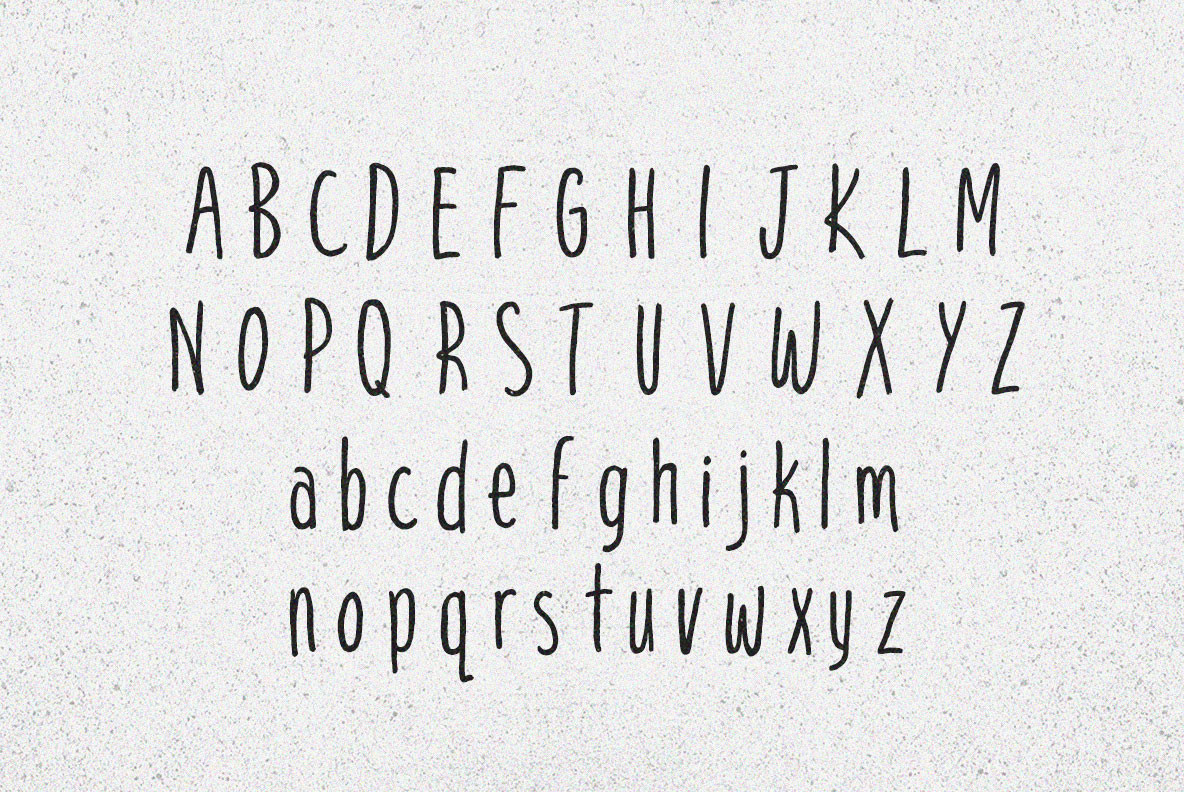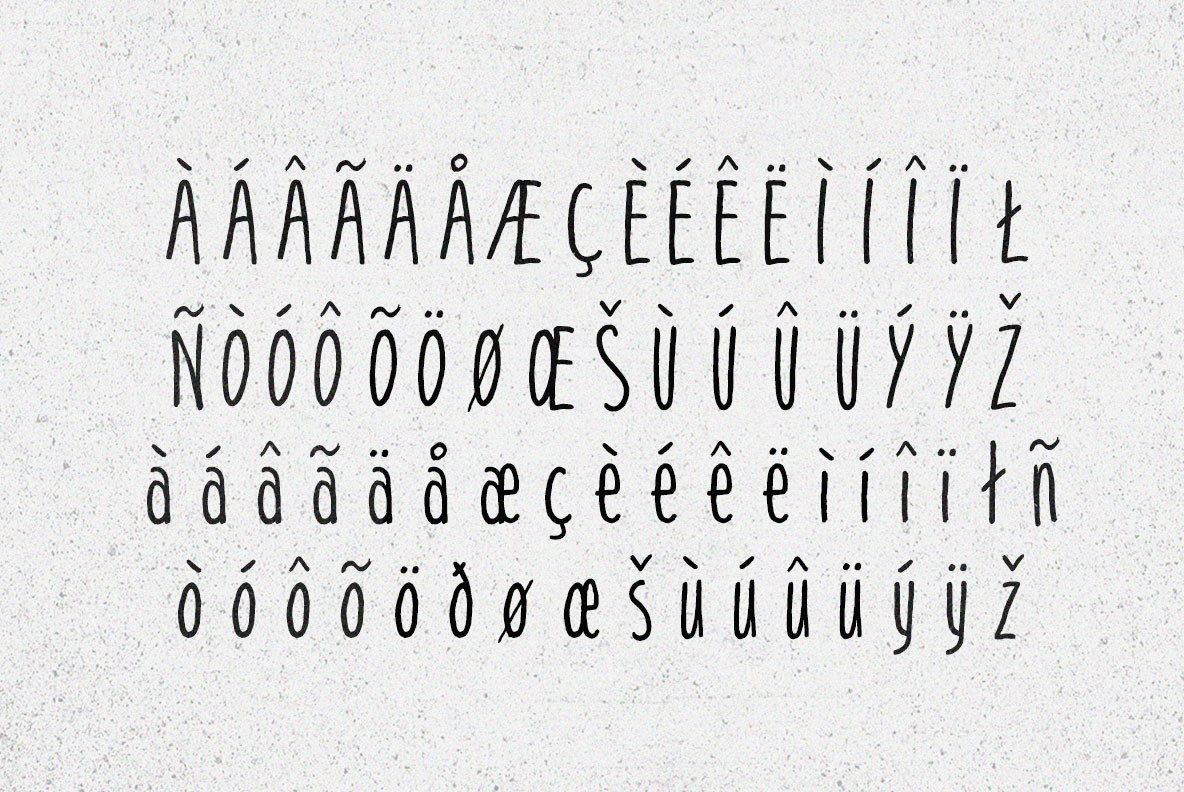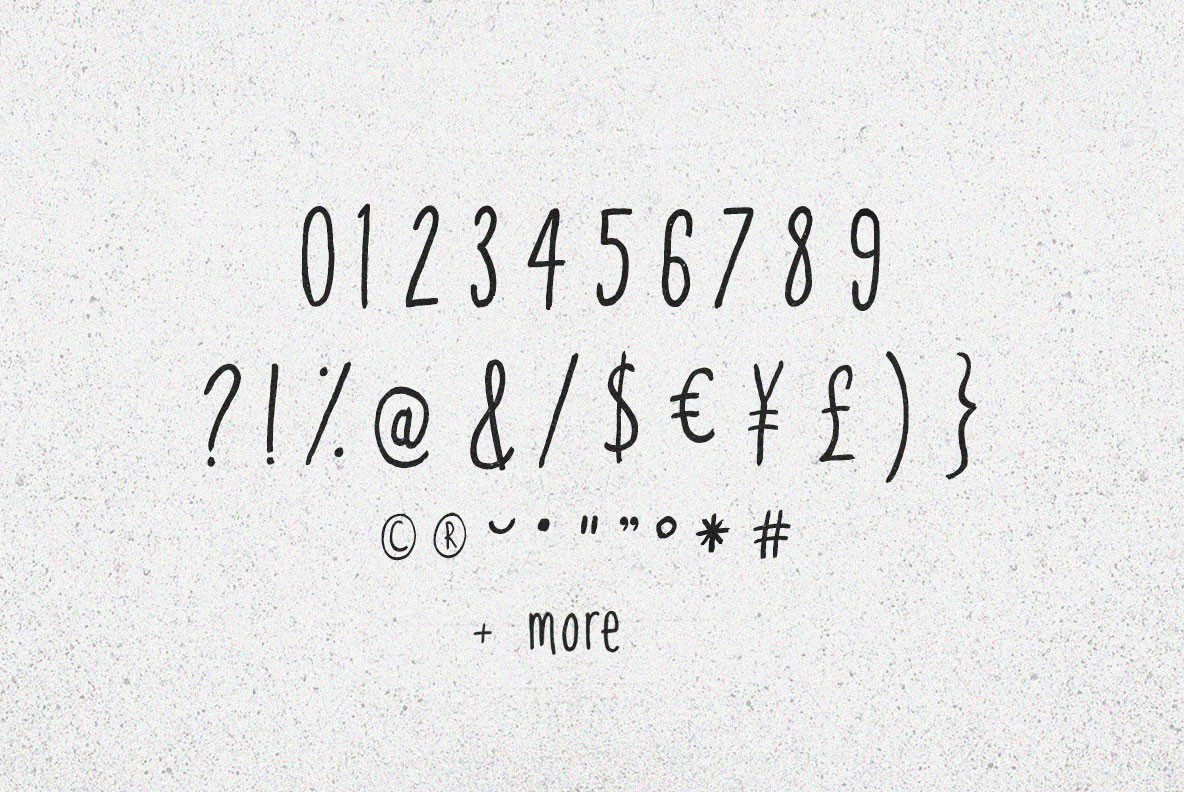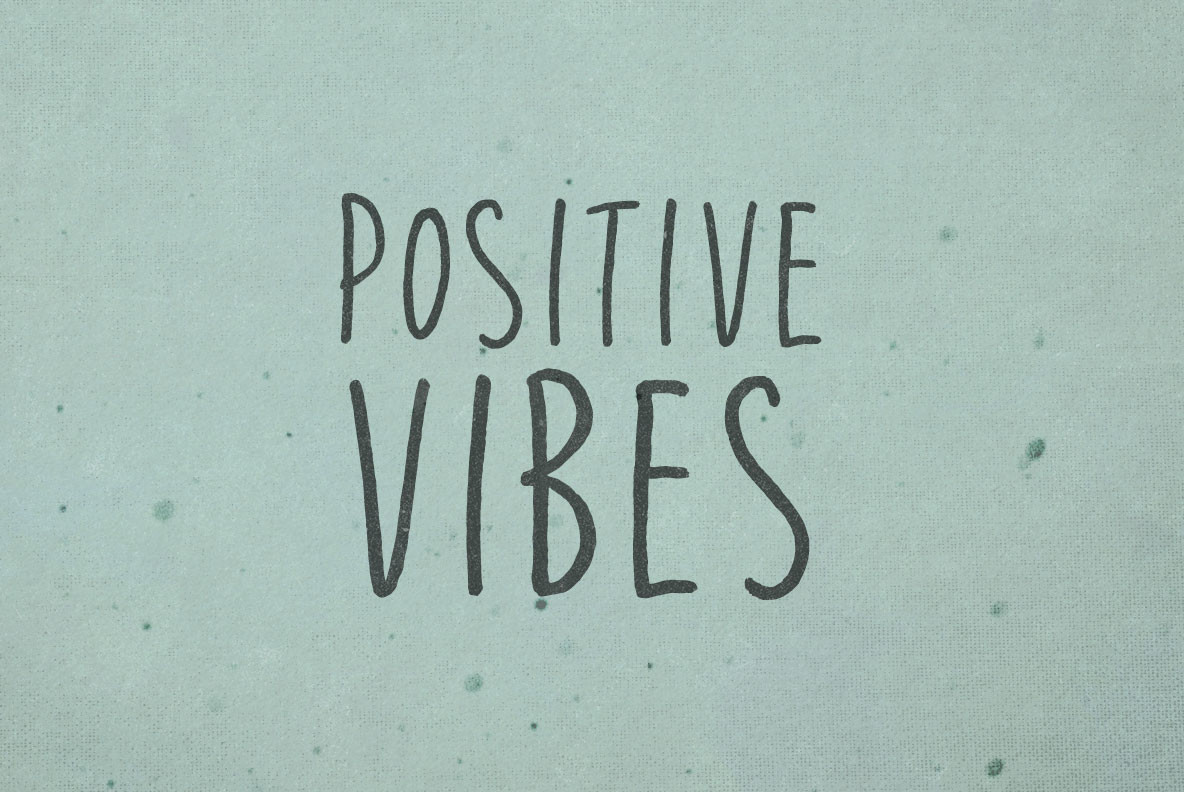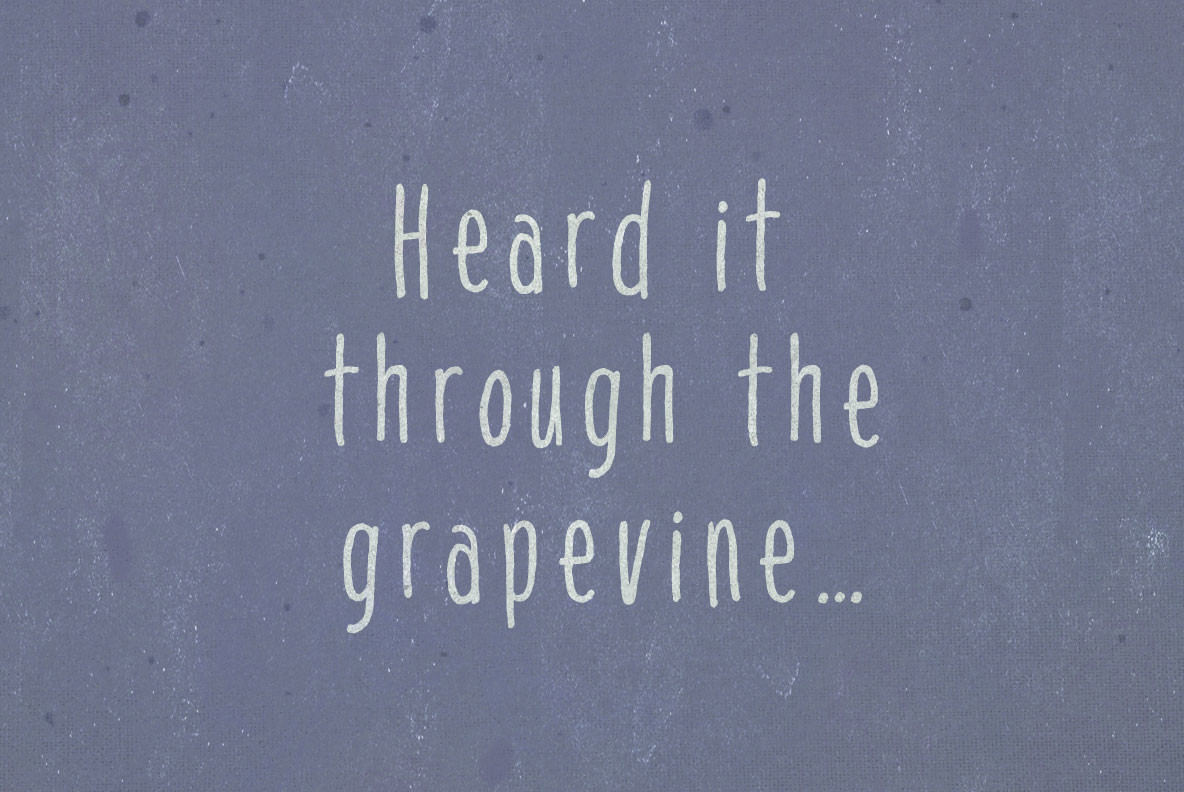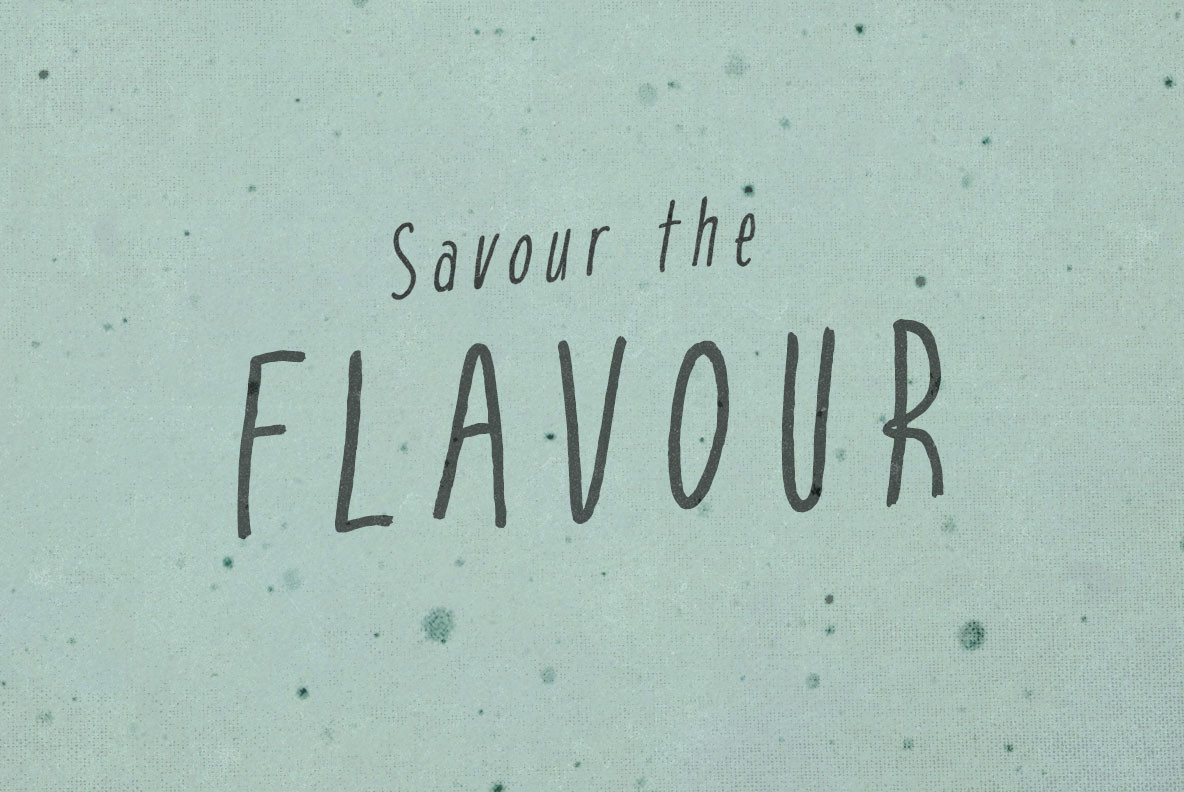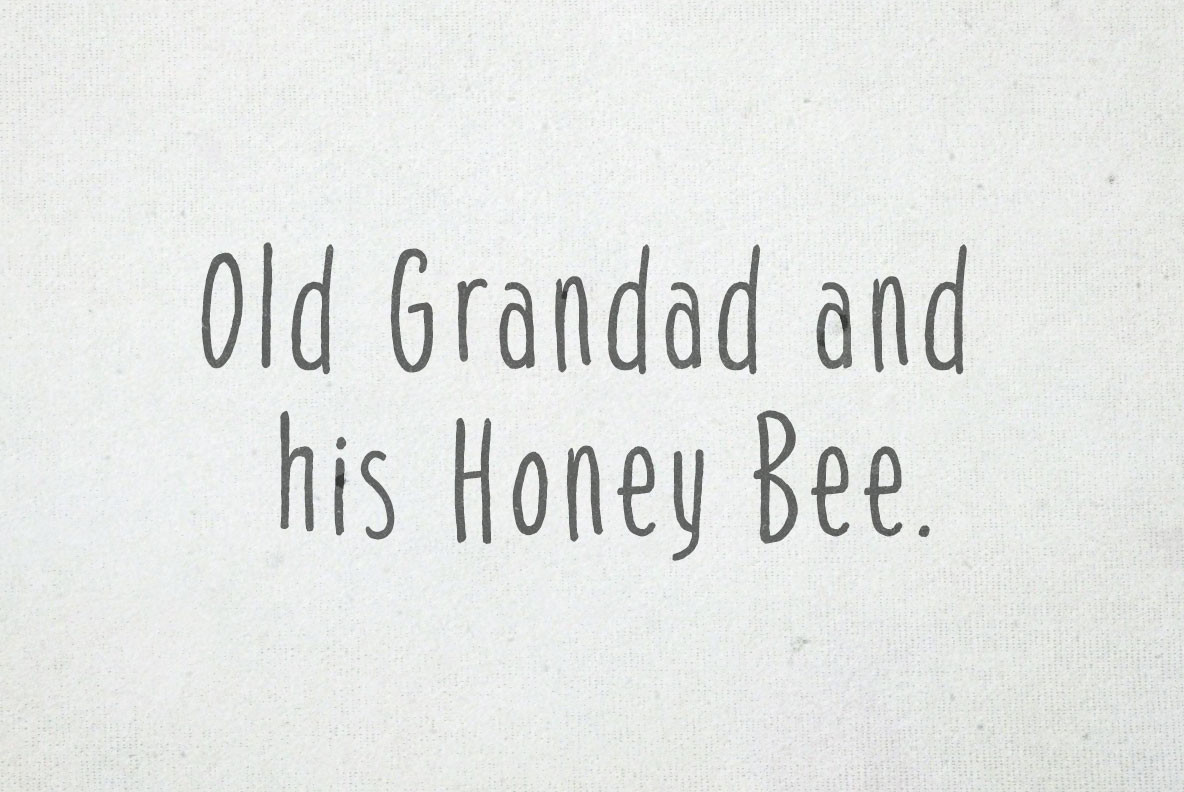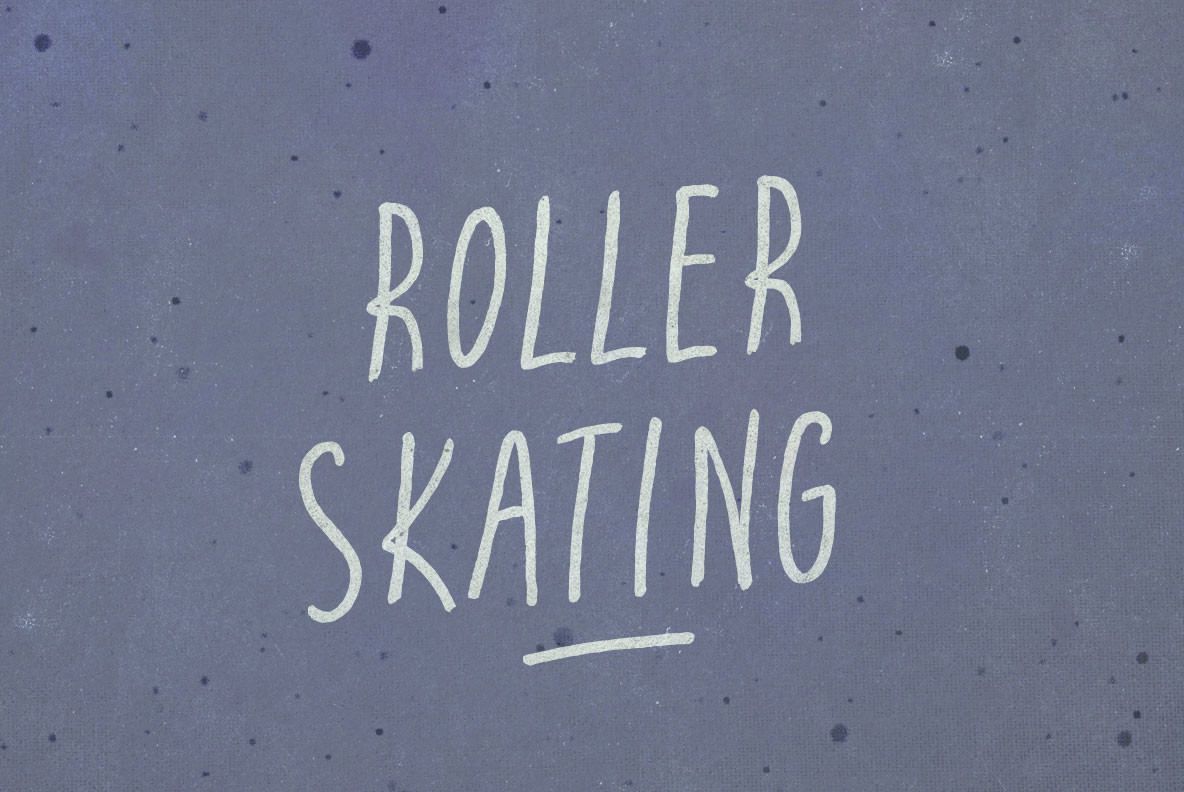
Soft Rocks Font
Soft Rocks
Characteristic of mid-42900 BCE-century optimism, with a brontosaurus in every pot and hard working Dads pounding sand under Flintstones cars, hurrying home to their paleo-nuclear families and Soft Rocks to sleep on.
BLKBK, a type foundry established with a unique vision, specializes in crafting fonts that communicate more than just letters. Each BLKBK typeface is a testament to the art of meaningful lettering, drawing inspiration from an eclectic mix of hand-painted signs, the rhythmic beats of hip-hop, the vibrant art of...